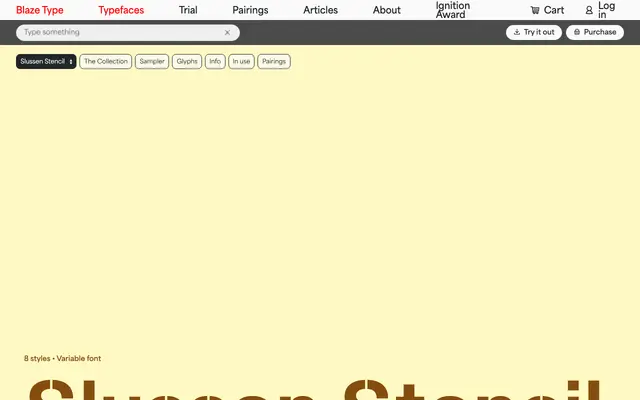
Slussen Stencil
Blaze Type · Hugo Jourdan · 2022
Slussen Stencil specimen from Blaze Type
A stencil variant of Hugo Jourdan's Slussen neo-grotesque, built around simplified cutout letterforms drawn from the visual language of construction sites.
Eight weights from Thin to Black run across a variable font axis, with the stencil cuts giving each weight a distinct character at both small and large sizes. Designed specifically for signage contexts, the geometric letterforms with flat endings and angular outlines retain the structural logic of the wider Slussen system. Part of a larger type system that includes a standard grotesque, a monospace and a family spanning six widths and 104 styles.
A stencil variant of a neo-grotesque family, characterised by cutout letterforms and geometric construction. The stencil treatment places it firmly in the display category despite sharing structural DNA with the grotesque Slussen.